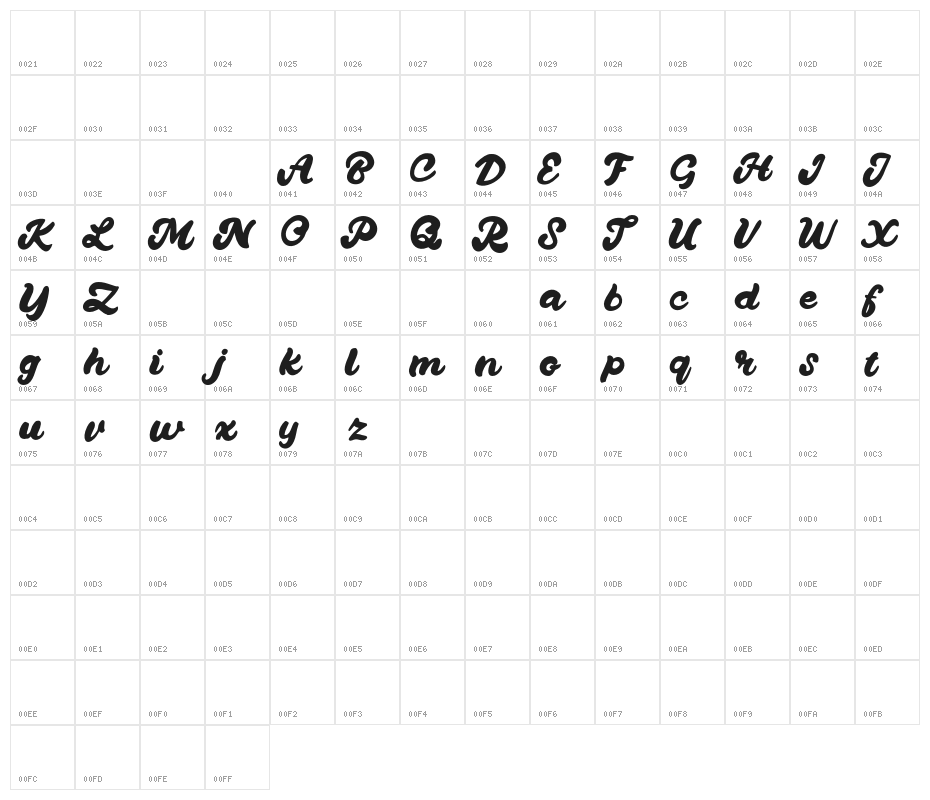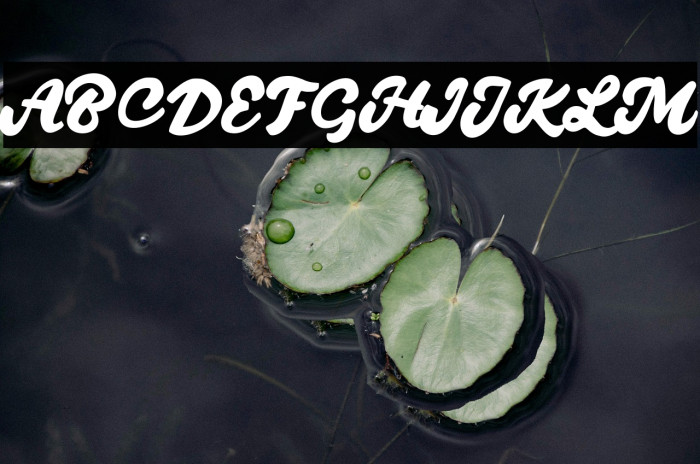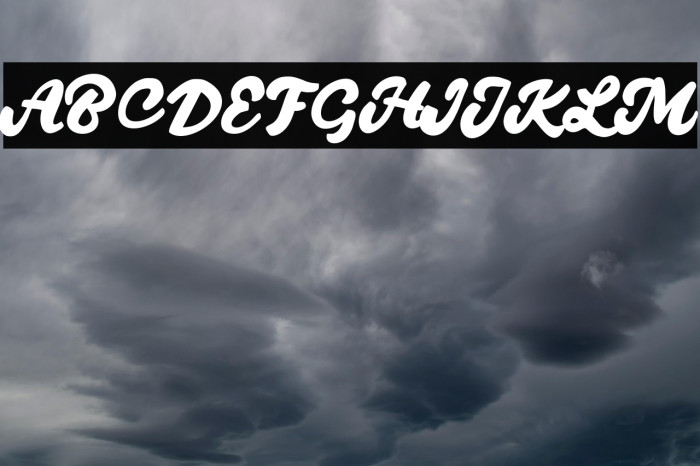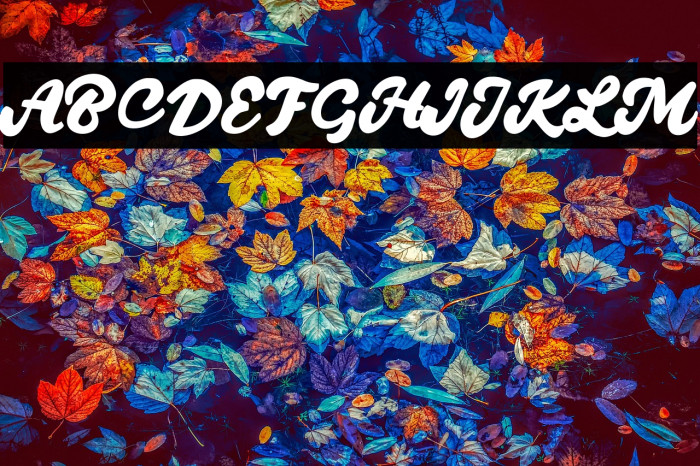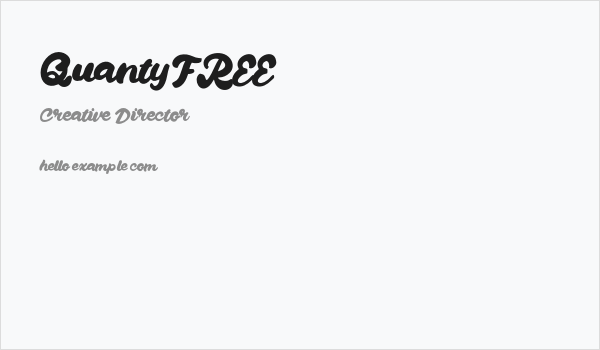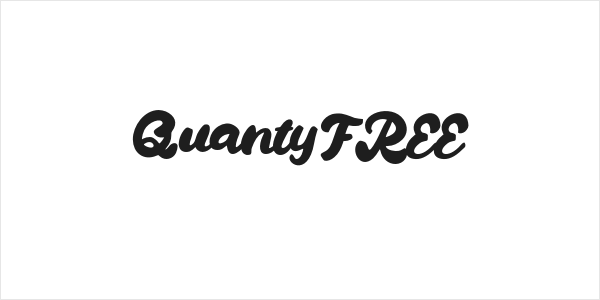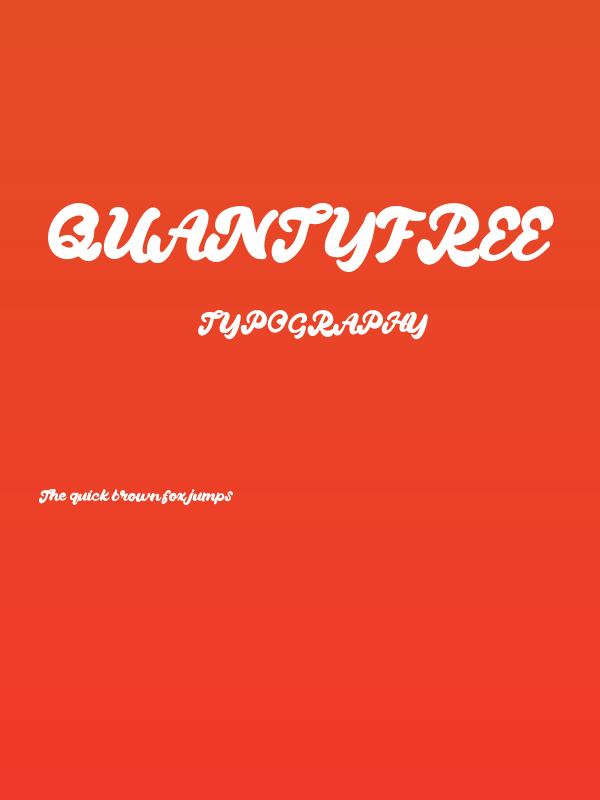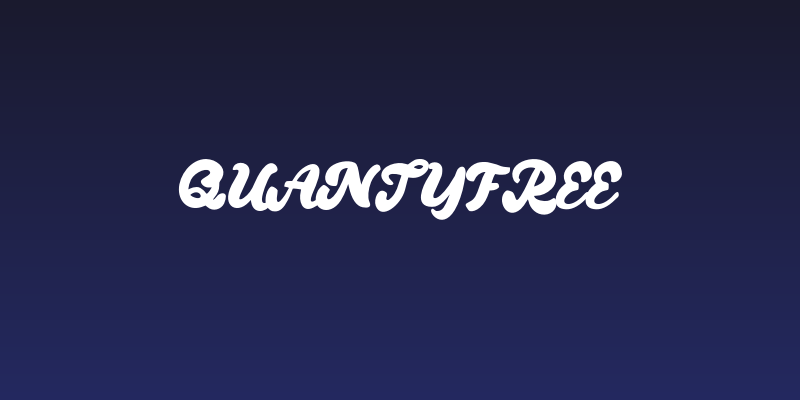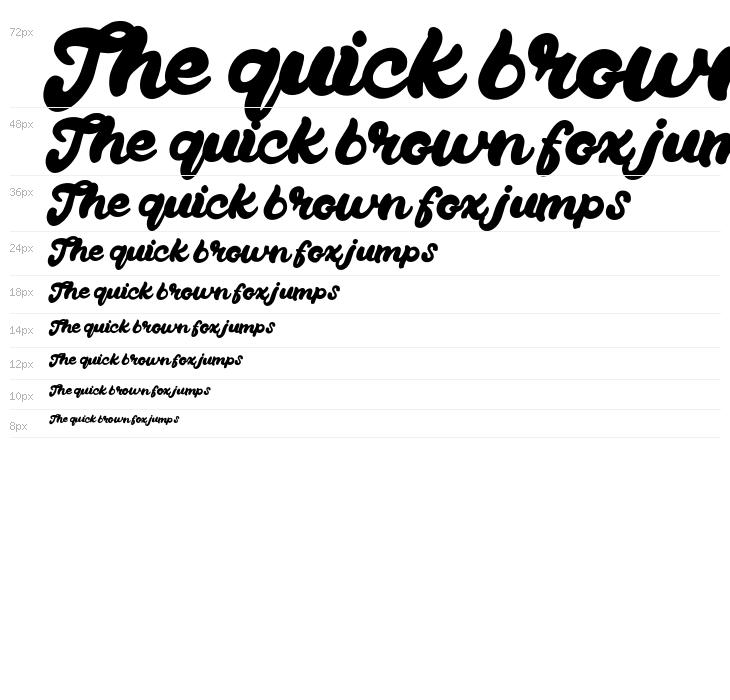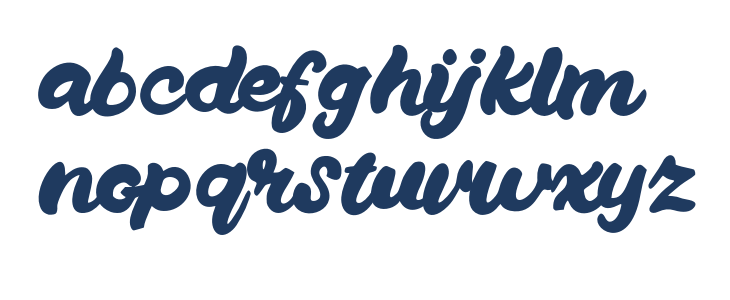
QuantyFREE Font
This font features a bold, cursive style with a playful and energetic appearance. The letters are connected, creating a flowing script that is both dynamic and expressive. The uppercase letters maintain a consistent height, while the lowercase letters exhibit a slight slant, enhancing the cursive effect. The strokes are thick and rounded, contributing to a sense of warmth and approachability. The overall design is reminiscent of handwritten calligraphy, yet it maintains a modern twist with its boldness and clarity. This font is well-suited for projects that require a personal touch or a sense of creativity.
| Use Case | Logos, Headlines, Invitations |
| Proposed Projects | Ideal for greeting cards, invitations, logos, and branding materials that require a personal and creative touch. |